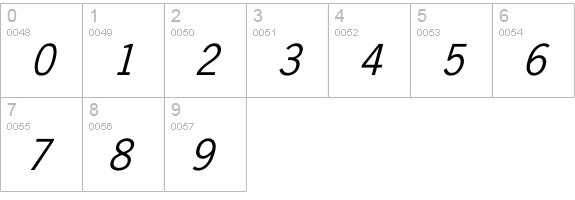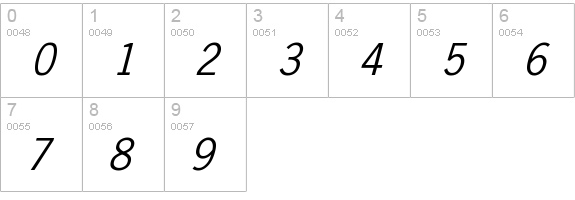
NewsGothic Italic Font Details
NewsGothic Italic is a distinctive, italic variant in the NewsGothic typeface family \xE2\x80\x94 well suited to design and typography projects.
NewsGothic Italic font is a sleek and modern typeface that exudes sophistication and elegance. Its italic design adds a touch of flair and style to any text, making it perfect for use in editorial layouts, branding materials, and more. The slanted letters create a dynamic and eye-catching look that is sure to captivate readers. What's even better is that NewsGothic Italic font is available for free download at FontsMarket.com. This means you can easily access this stunning typeface without any cost, allowing you to elevate your design projects without breaking the bank. Don't miss out on the opportunity to enhance your work with the beauty and versatility of NewsGothic Italic font - download it for free today!